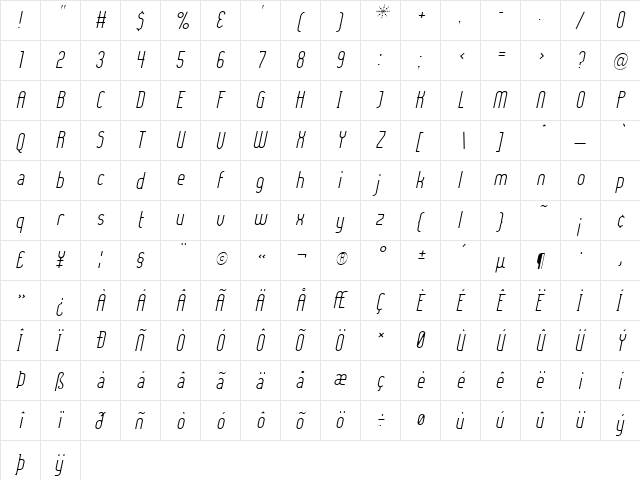
Lady Ice - Light Italic
Design Context for Lady Ice - Light Typeface
Lady Ice - Light offers clean, dependable letterforms without strong stylistic allegiance, making it a practical choice for designers who need flexibility. The dynamic lean of this cut emphasises speed and emphasis in any layout. The delicate stroke weight brings airiness and refinement to layouts.
Pro Tip: Use Lady Ice - Light for emphasis, pull quotes, and subheadings where its slanted energy can add rhythm to the layout.